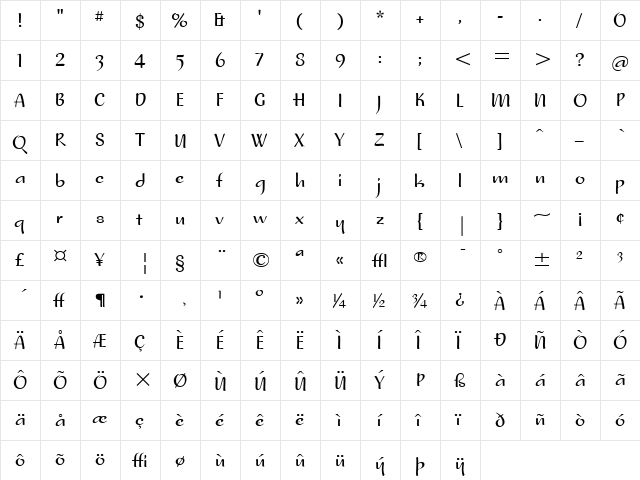
Nora ITC Regular
Design Context for Nora ITC Typeface
Nora ITC offers clean, dependable letterforms without strong stylistic allegiance, making it a practical choice for designers who need flexibility.